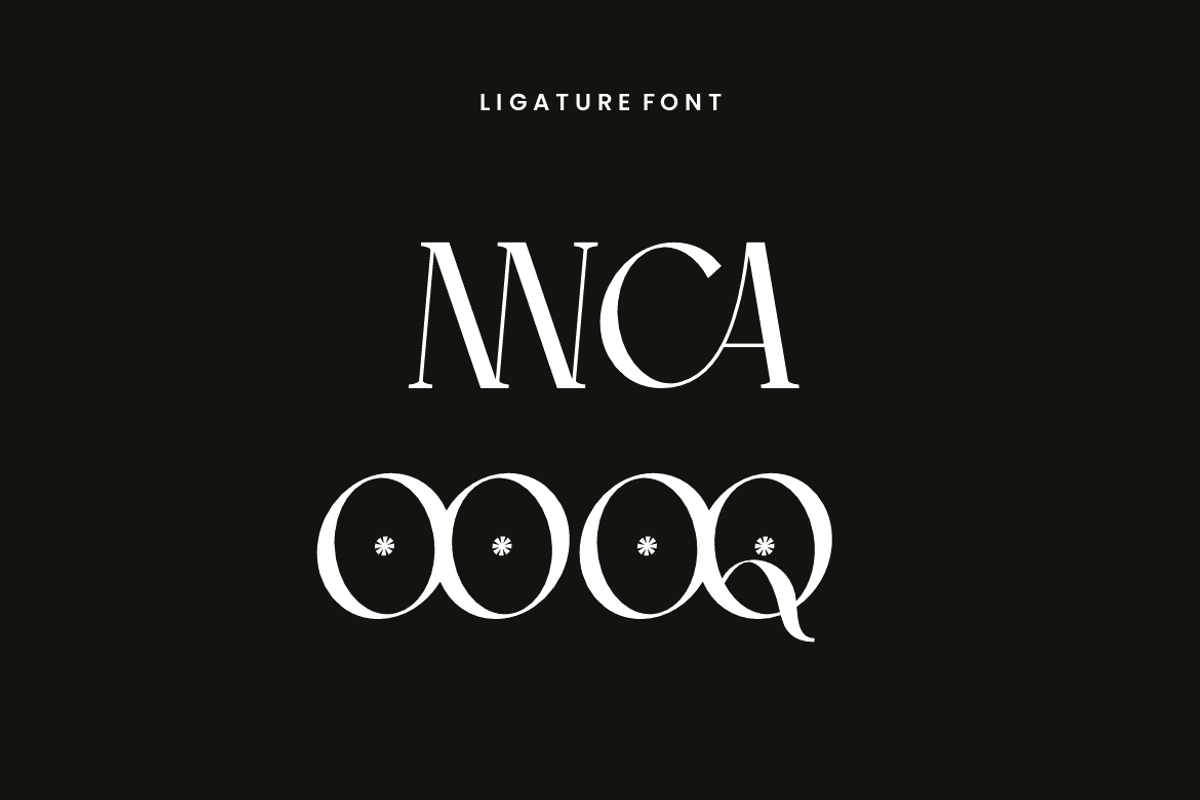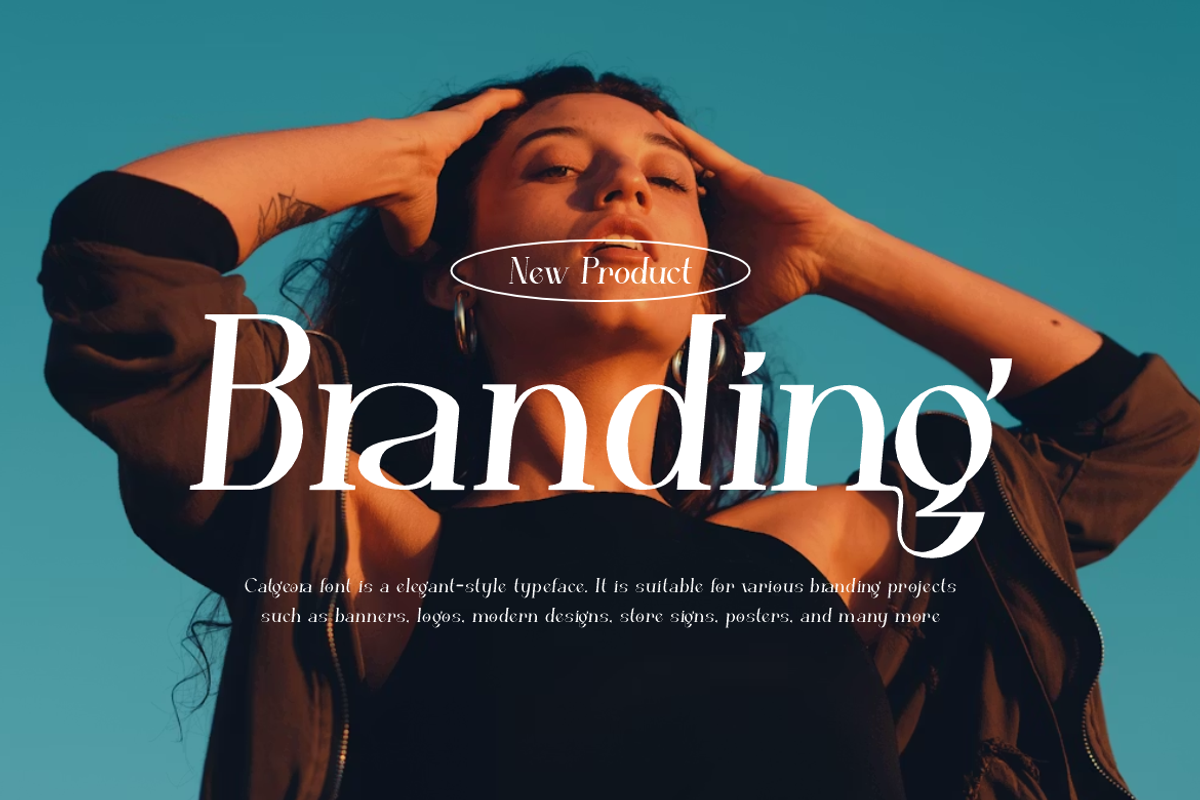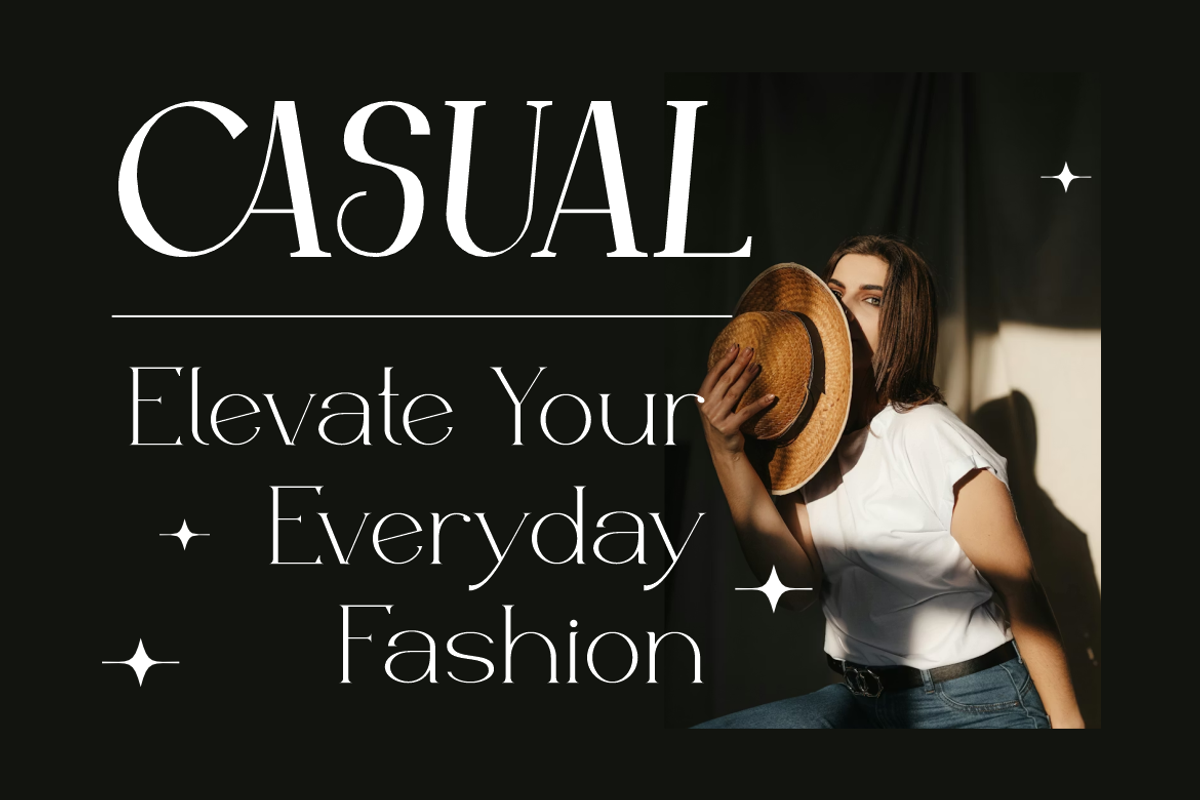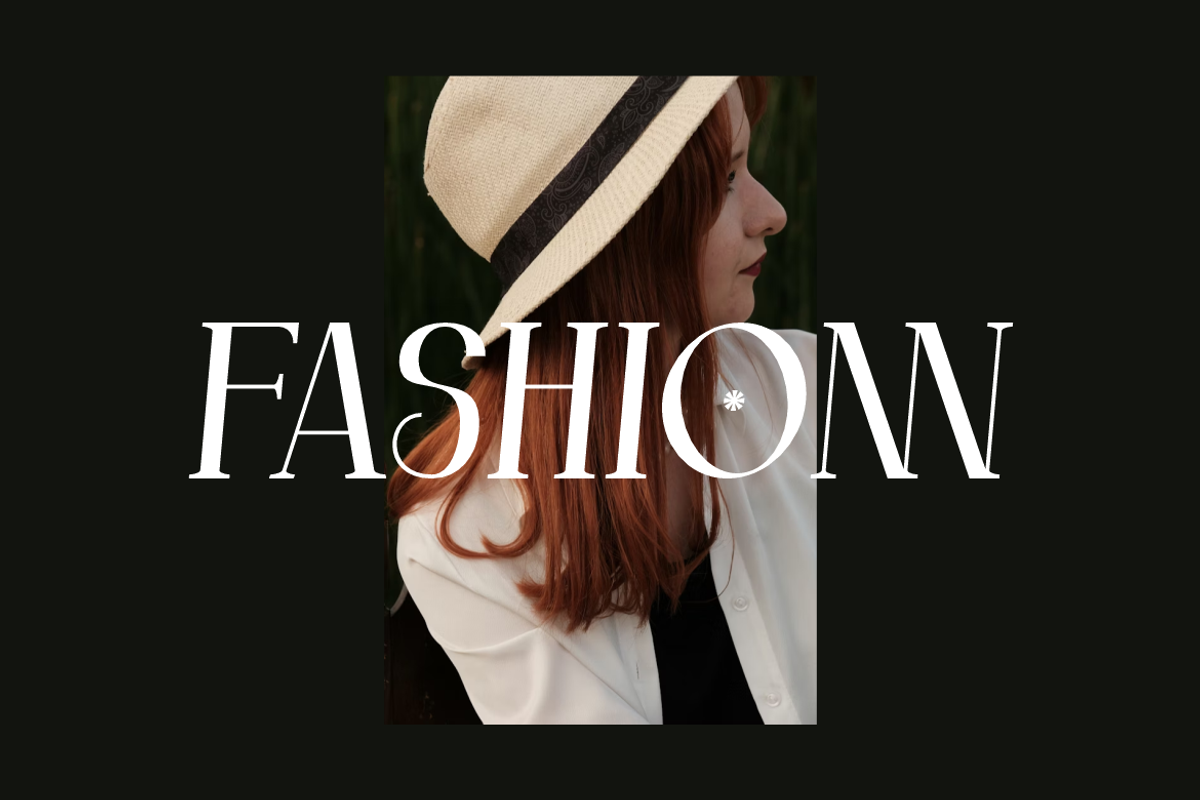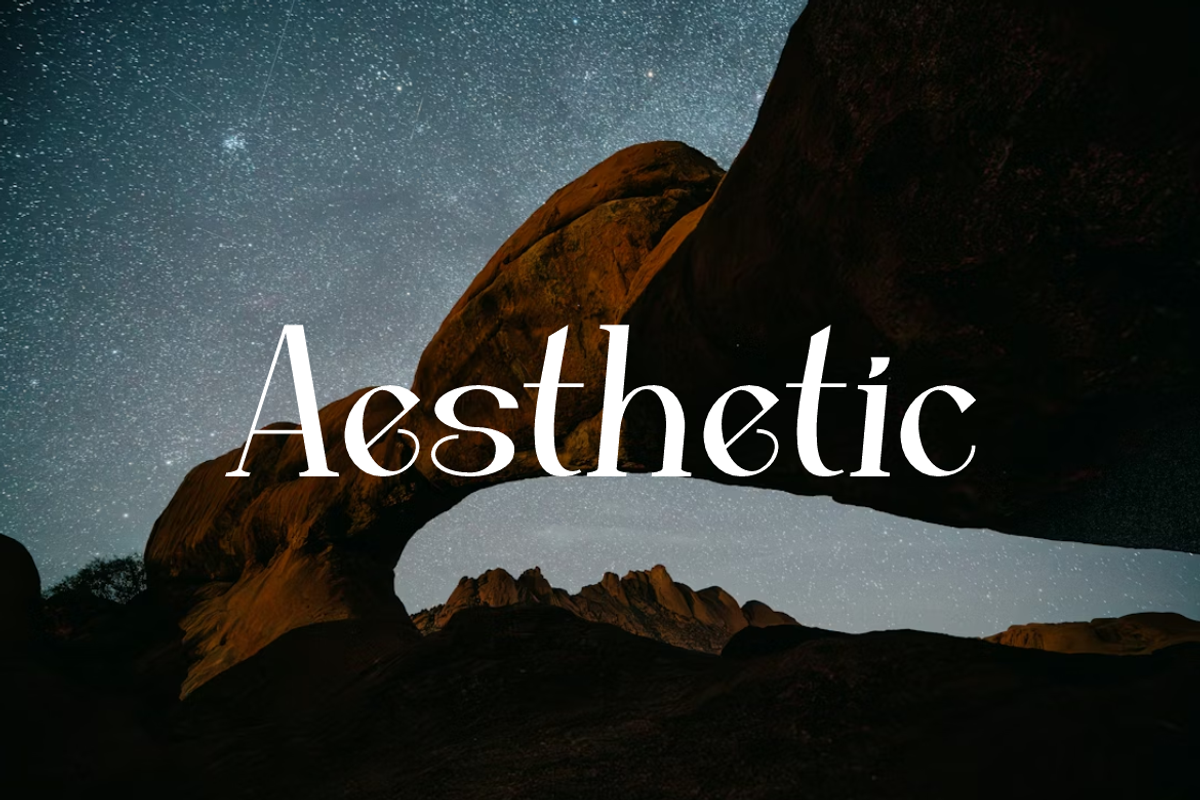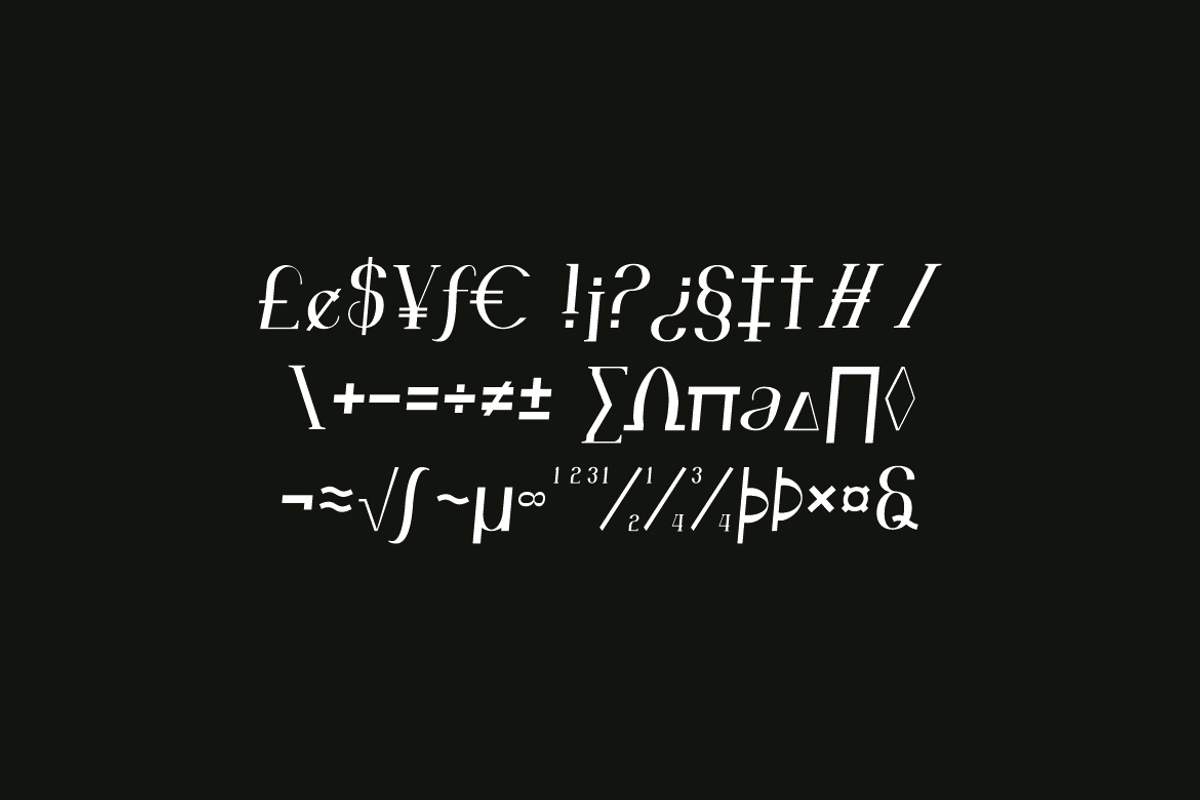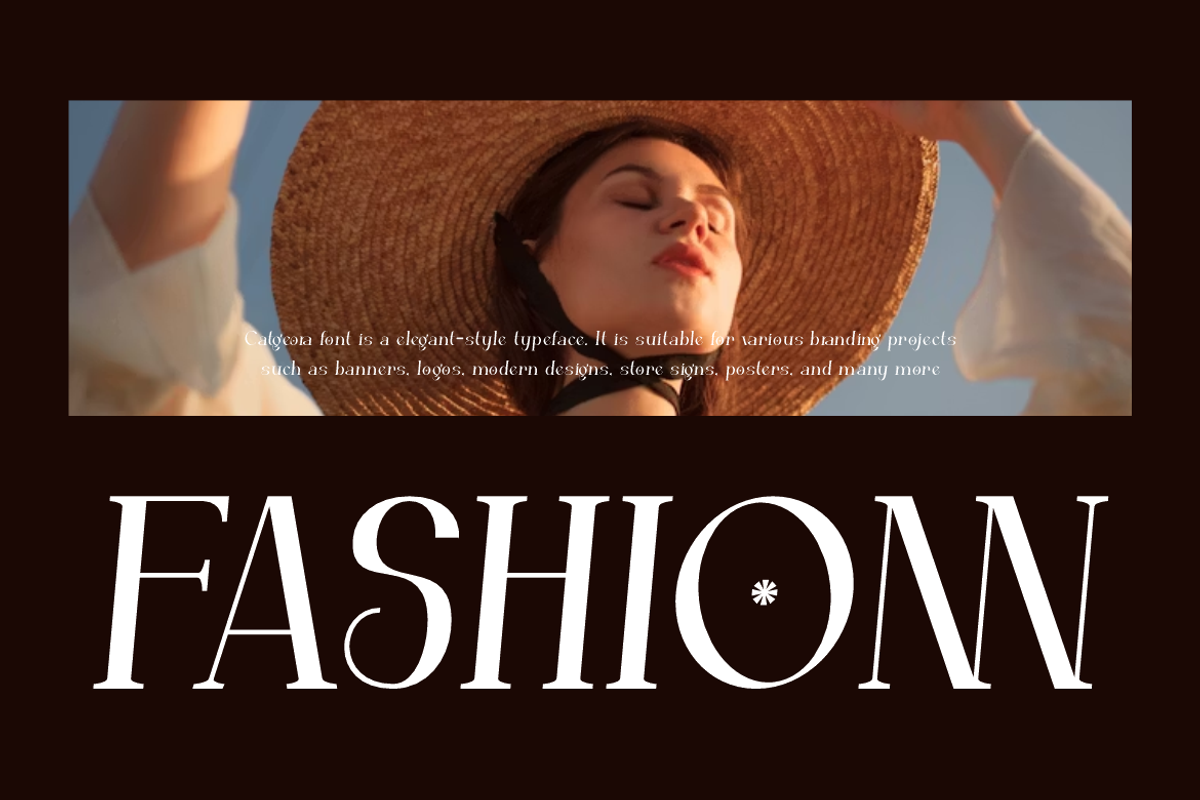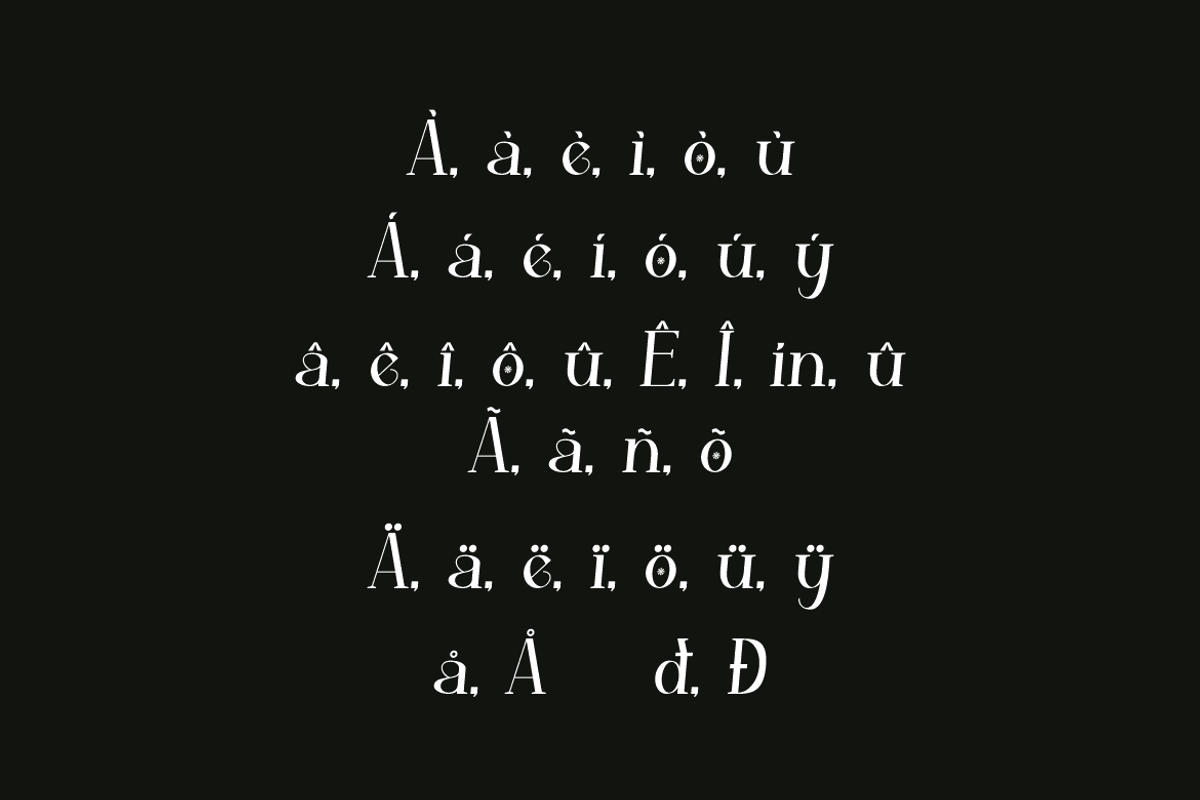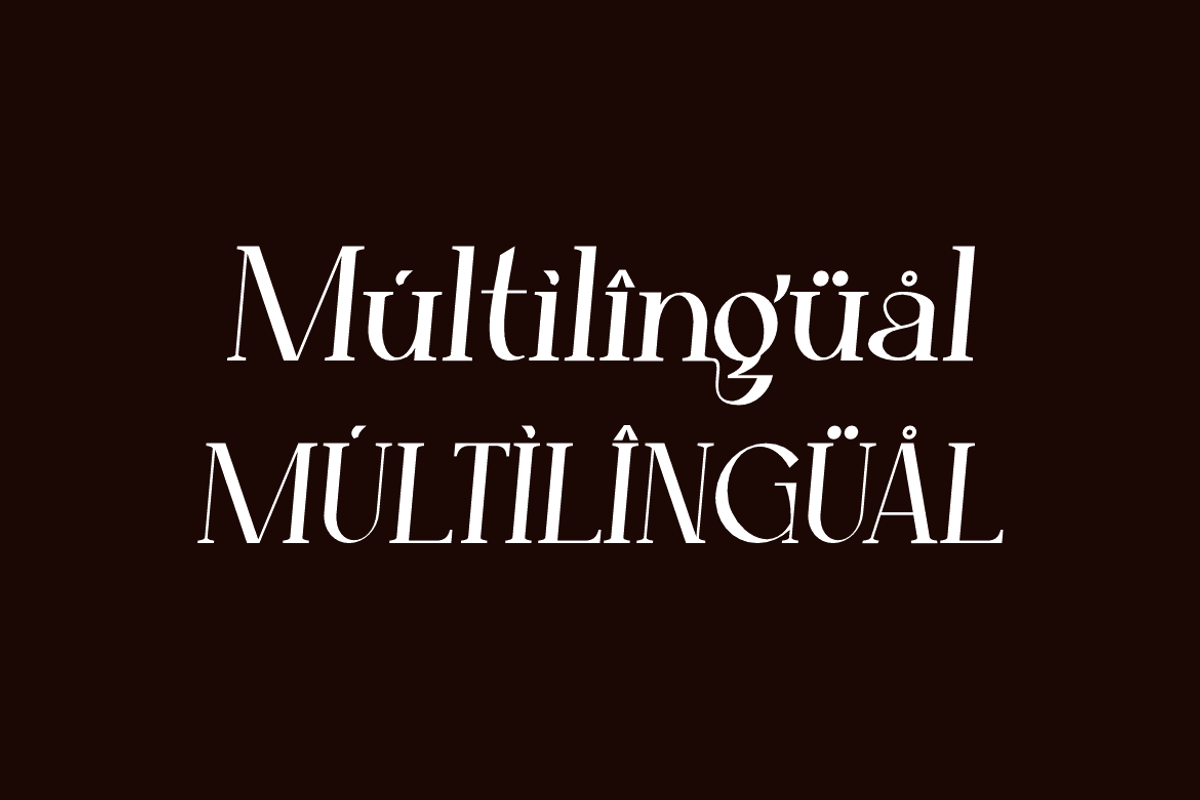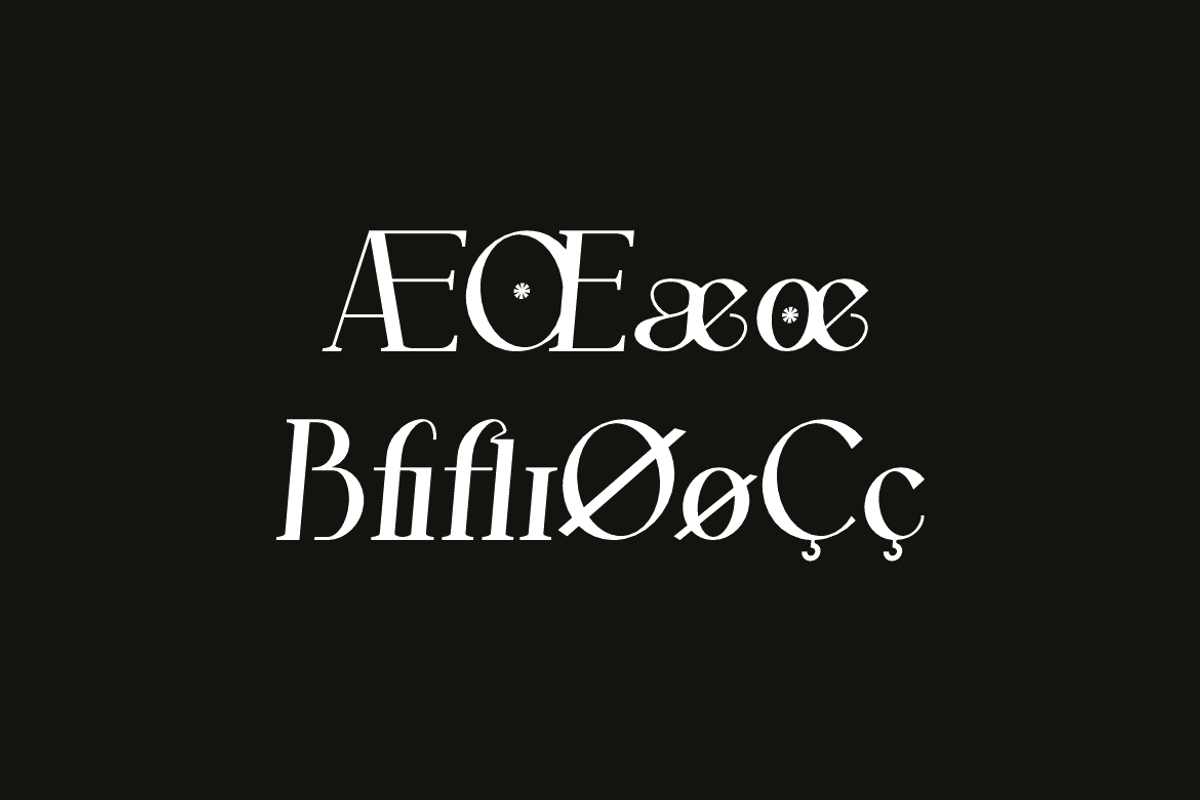
Catgeora - Elegant Serif Font
Catgeora Font is a serif and authentic display typeface. It’s perfect for various branding projects such as logos, modern designs, and more. This font stands out beautifully in a wide range of contexts.